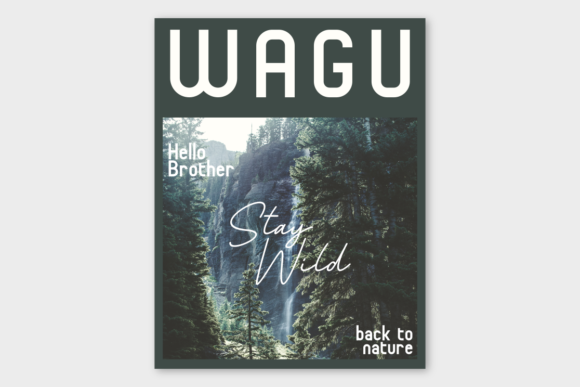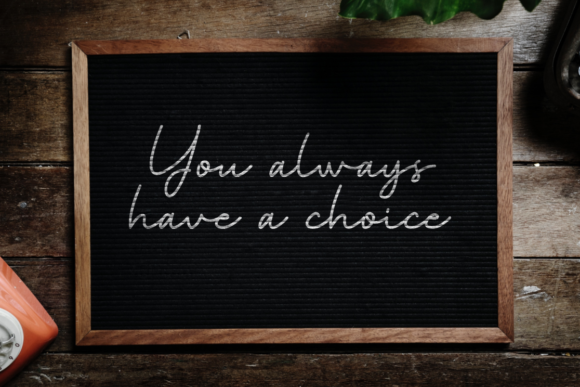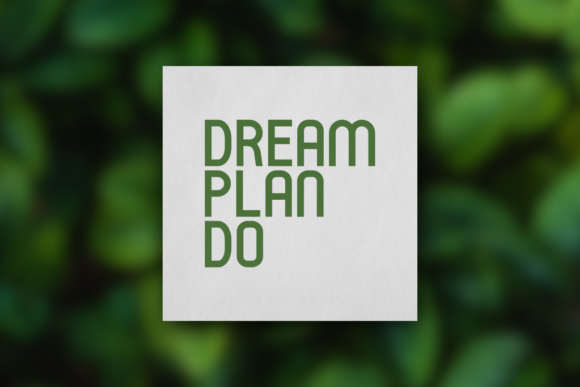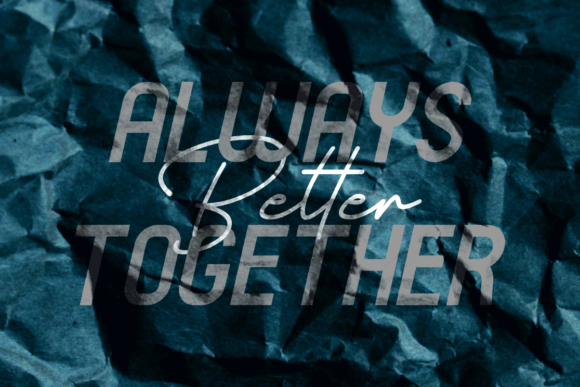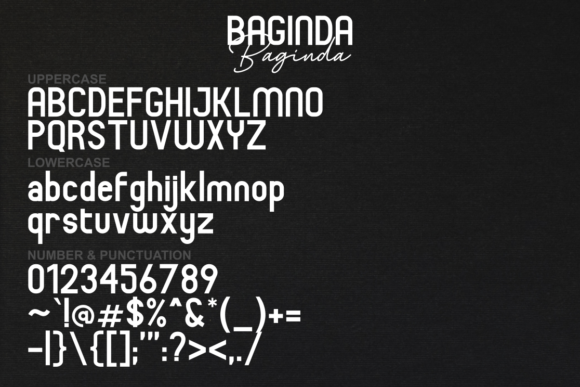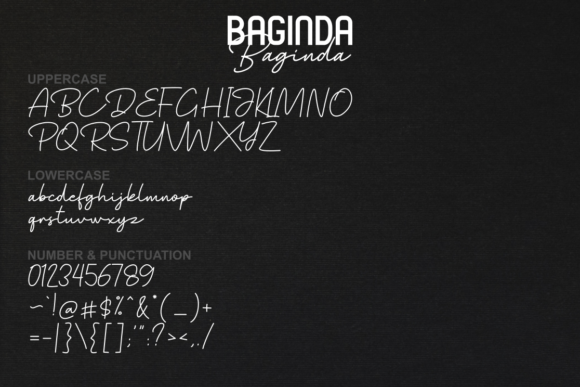
Introducing the Baginda Duo Font: Elevate Your Design with Modern Style
In the world of typography, finding the perfect font combination can make all the difference in elevating your design project. Look no further than the Baginda Duo Font, a thoughtfully crafted pairing of a sans serif and script font that creates a uniquely modern style. This dynamic duo is designed to effortlessly take your designs to the next level, making it a must-have for designers and crafters alike.
The Perfect Pairing: Sans Serif and Script Font
The Baginda Duo Font combines two complementary fonts, each with its own distinct character. The sans serif font boasts clean lines, simplicity, and a modern aesthetic, while the script font adds a touch of elegance and sophistication. Together, they create a harmonious balance that adds depth and visual interest to any design project.
Key Features of the Baginda Duo Font
- Unique Modern Style: The Baginda Duo Font’s distinctive combination of sans serif and script fonts creates a fresh, modern look that’s sure to turn heads.
- Versatility: With both regular and oblique styles available, you can add variety and nuance to your designs, keeping them visually engaging and dynamic.
- Elegance and Sophistication: The script font adds a touch of luxury and refinement, perfect for designs that require a bit of extra flair.
- Effortless Pairing: The Baginda Duo Font’s fonts are carefully crafted to work seamlessly together, saving you time and effort in selecting the perfect font combination.
The Baginda Duo Font is perfect for a wide range of design projects, from:
- Branding and Logos: Create a lasting impression with a unique and memorable font combination that reflects your brand’s personality.
- Invitations and Stationery: Add a touch of elegance and sophistication to your invitations, cards, and stationery.
- Web Design: Elevate your website’s typography with a modern, clean, and responsive font combination that enhances user experience.
- Print Design: From brochures to posters, the Baginda Duo Font is perfect for adding a professional touch to your print designs.
Why Choose the Baginda Duo Font?
In a world where typography plays a crucial role in design, the Baginda Duo Font stands out from the crowd. Here are just a few reasons why:
- High-Quality Design: Crafted with attention to detail, the Baginda Duo Font is designed to deliver exceptional results in any design project.
- Time-Saving: With the Baginda Duo Font, you can skip the tedious process of searching for the perfect font combination and get straight to designing.
- Flexibility: The regular and oblique styles offer flexibility and versatility, allowing you to experiment with different design options.
Ready to take your designs to the next level? The Baginda Duo Font is here to help. With its unique modern style, versatility, and elegance, this font combination is sure to become a staple in your design toolkit. Say goodbye to boring typography and hello to a world of creative possibilities!